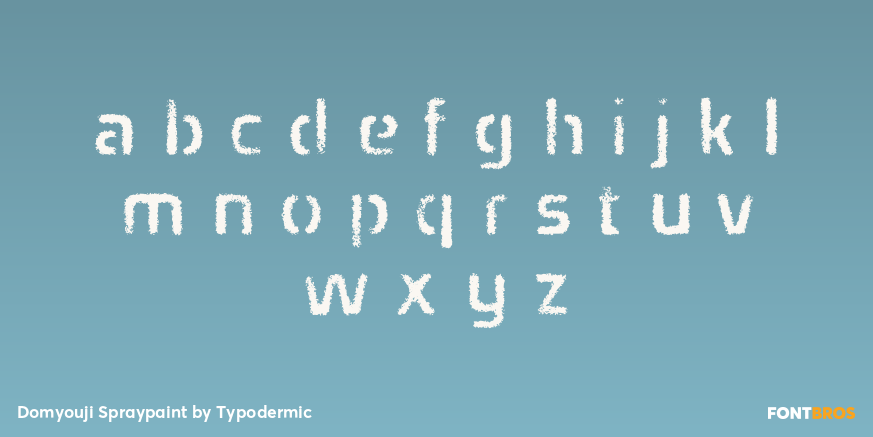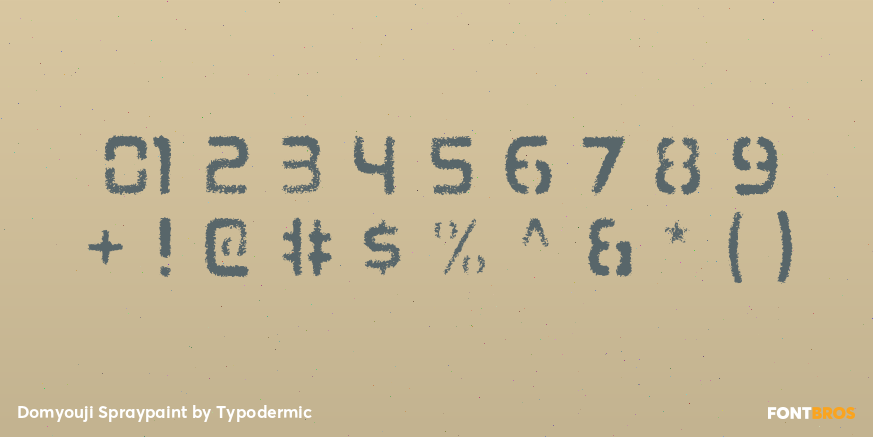
Domyouji Spraypaint
Buy NowDomyouji Spraypaint turns the family’s compact technical forms into rough, manually applied markings. It looks like the official lettering system has been reused through a stencil in the field, giving temporary identifiers and improvised warnings the same organizational DNA as the clean interface graphics.
Use Spraypaint for cargo IDs, faction markings, maintenance notes, damaged-zone warnings, vehicle numbers, simulator environments, and science-fiction props added after manufacture. Combine it with Regular for official labels and Dirty for aged surfaces to build a coherent clean-to-improvised visual history.